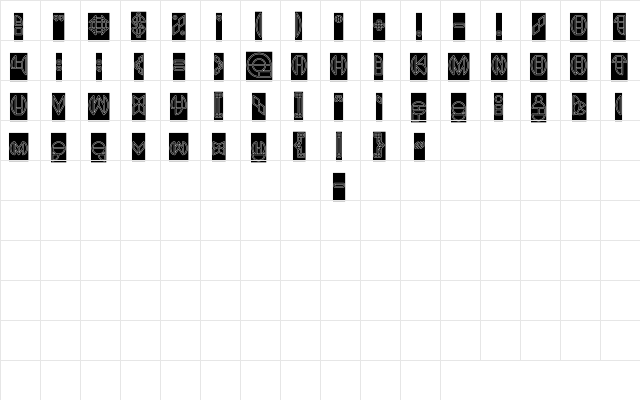
DRAGON FLY-Outlined-Hollow Regular
Design Context for DRAGON FLY-Outlined-Hollow Typeface
DRAGON FLY-Outlined-Hollow brings ornamental detail and strong personality to headlines and identities, where visual impact matters more than quiet functionality.
Font Pairing: Pair with a clean neutral sans-serif for body copy to let DRAGON FLY-Outlined-Hollow's character lead without overwhelming the composition.
Pro Tip: Use DRAGON FLY-Outlined-Hollow exclusively at display sizes — it was designed to be seen, not read at length. Let a neutral companion handle body copy.